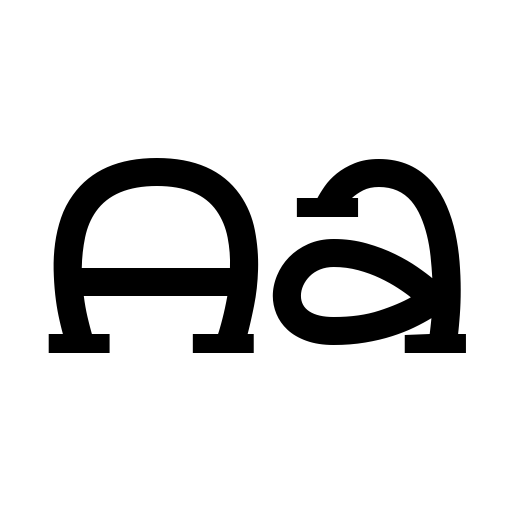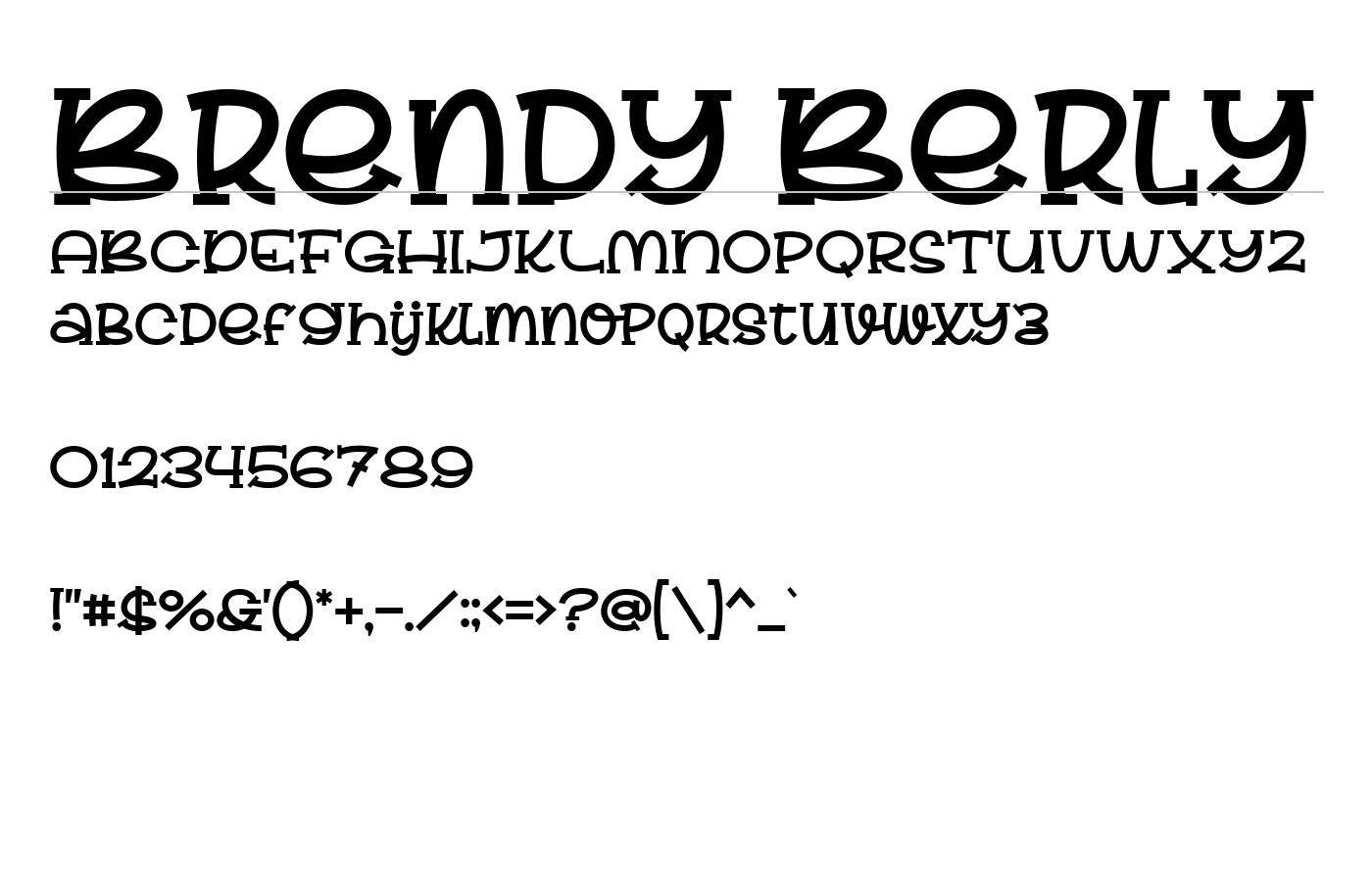
Brendy Berly is a playful and casual serif font with a hand-drawn feel, featuring rounded, slightly irregular shapes and moderate contrast. Its quirky letterforms, such as the curved tails and unusual stroke endings, give it a friendly and approachable personality, making it ideal for creative branding, children’s products, or informal headlines. This font works well where a warm and unique style is desired to add character and charm.
Brendy Berly Font
About Brendy Berly Font